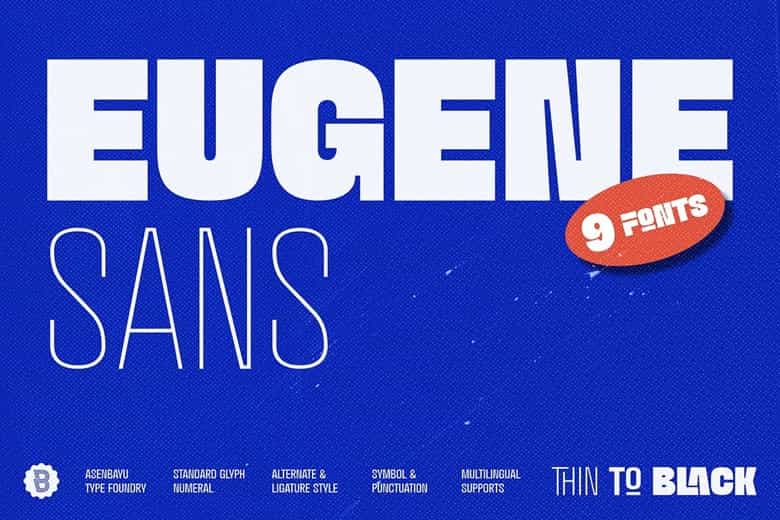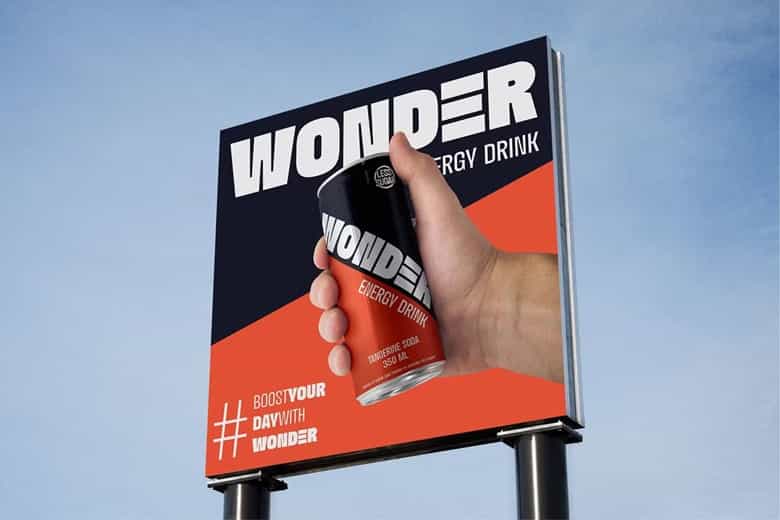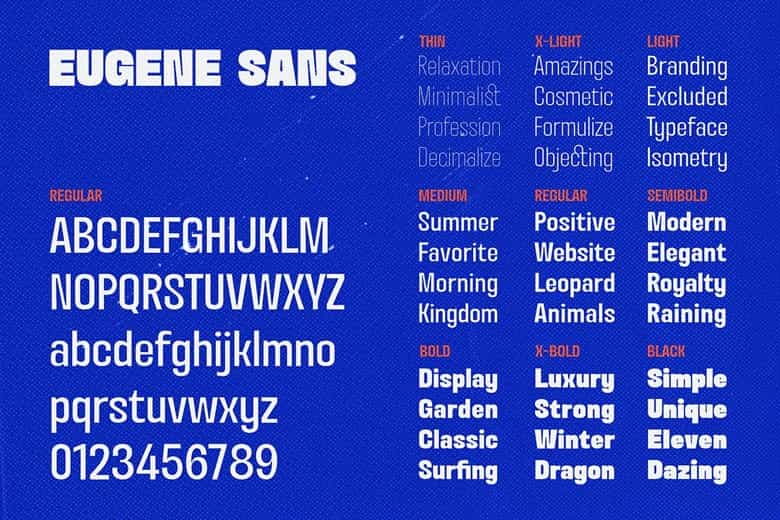
Eugene Sans is an elegant grotesque sans serif font family containing 9 styles. It has a simple and practical design, which combines geometrics with some elements that represent the human being. It also has a plain design that can easily fit into any design situation and look good in the process. This font is perfect for modern packaging label purposes, distinctive logos you want, poster designs, and headlines and other.